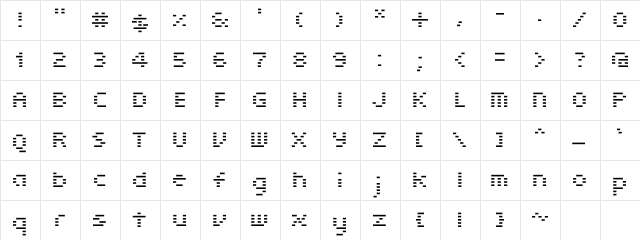
Cardew Three Regular
Design Context for Cardew Three Typeface
Cardew Three is a composed and adaptable typeface that performs quietly and consistently across a wide range of design contexts.